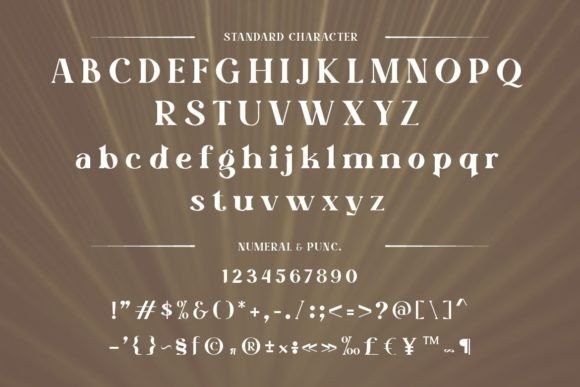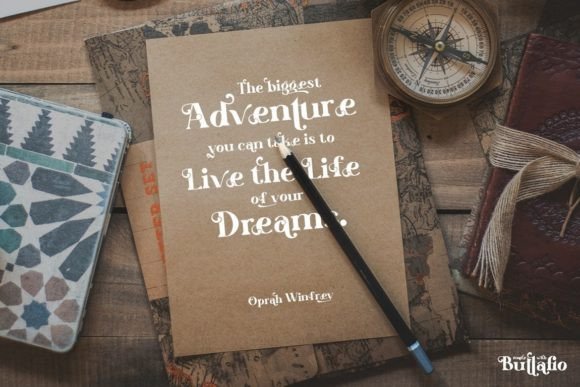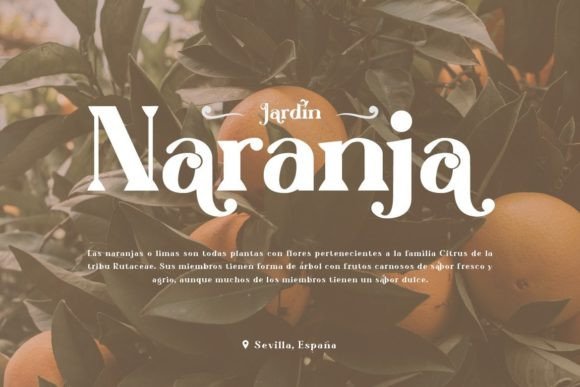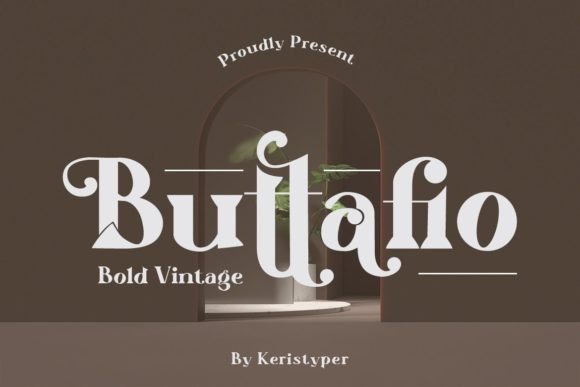
Introduction to Buttafio Font
Buttafio is a stylish vintage serif font inspired by a groovy vibe with a touch of modernity.
The appearance of the curves is in the form of light, free-flowing brush strokes This font is good for logo design, Social media, Movie Titles, Books Titles, short text even long text letters, and good for your secondary text.